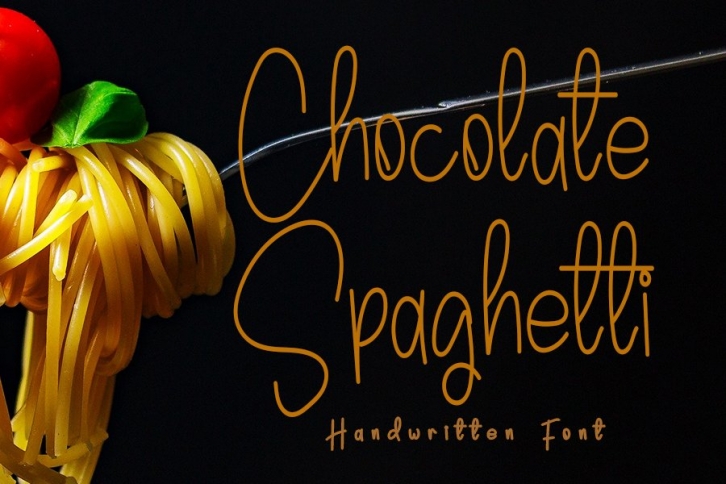
Chocolate Spaghetti is a great font that was designed by InermediaSTUDIO. Imagine the amount of combinations you can create using this font! The archive is 21.38 MB and it was released on March 20, 2021. Chocolate Spaghetti looks beautiful on wedding invitations, greeting cards, logos, posters, labels, t-shirt designs, logos, business cards and is perfect for use in ink or watercolor works, fashion, magazines, packaging and food menus, children's books and more!